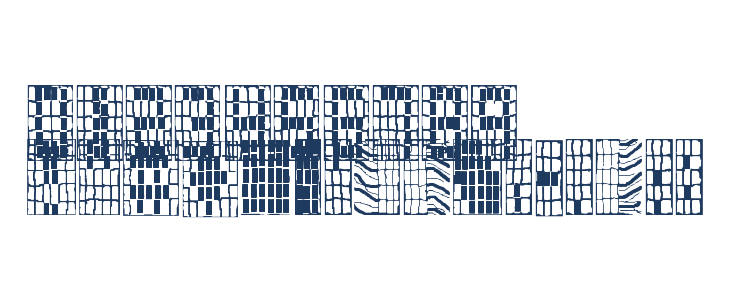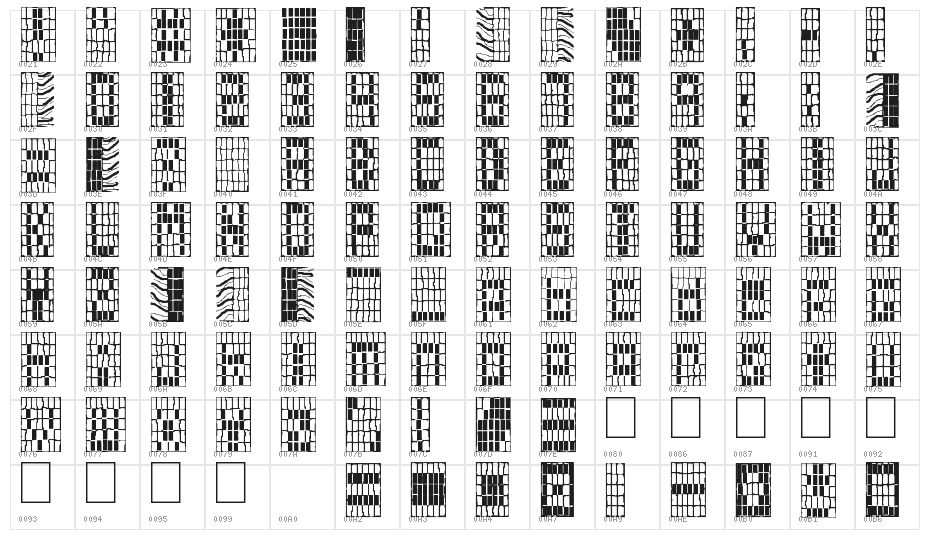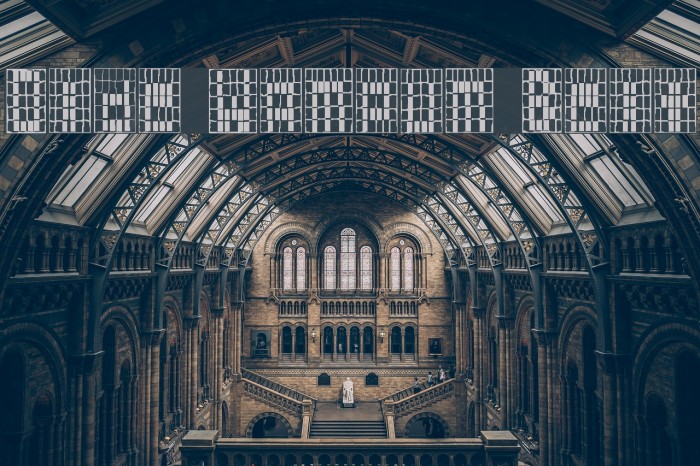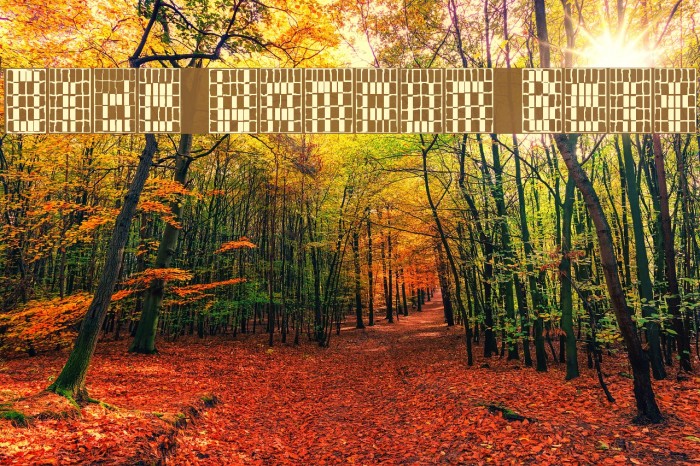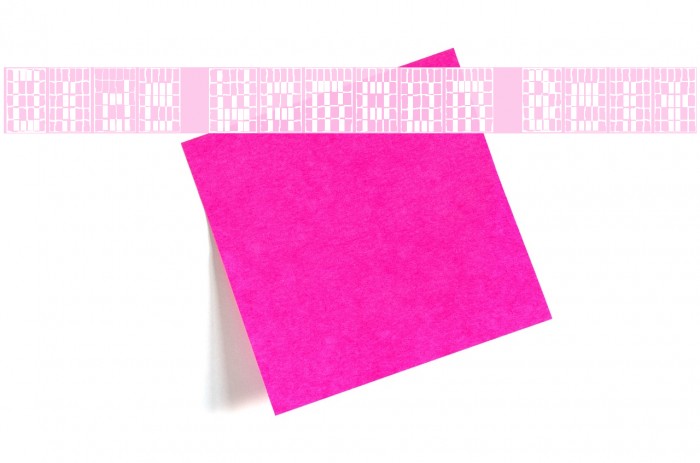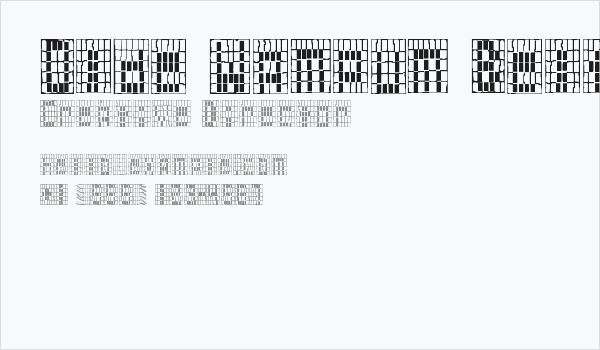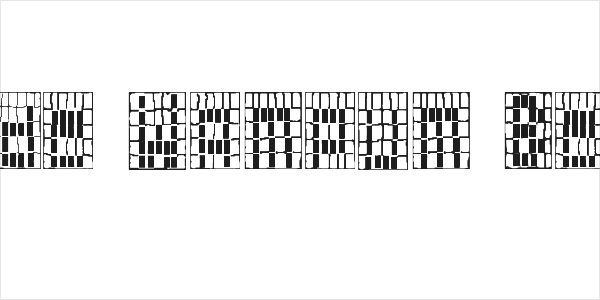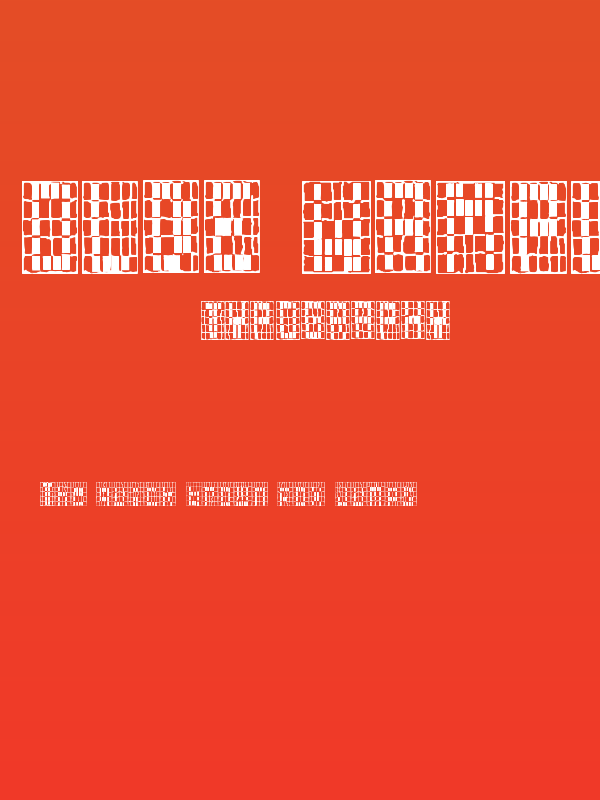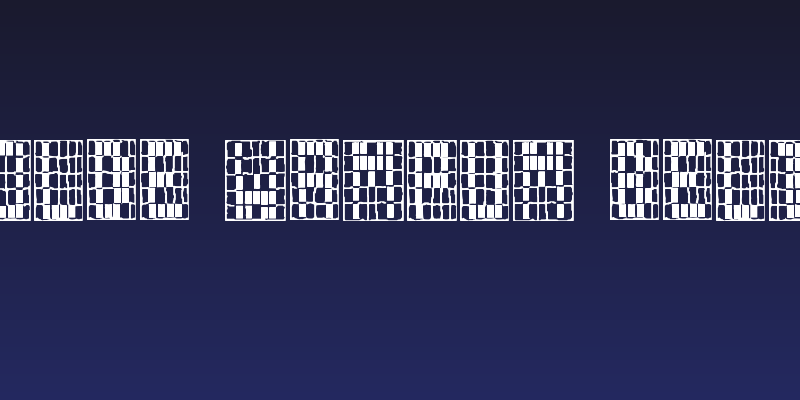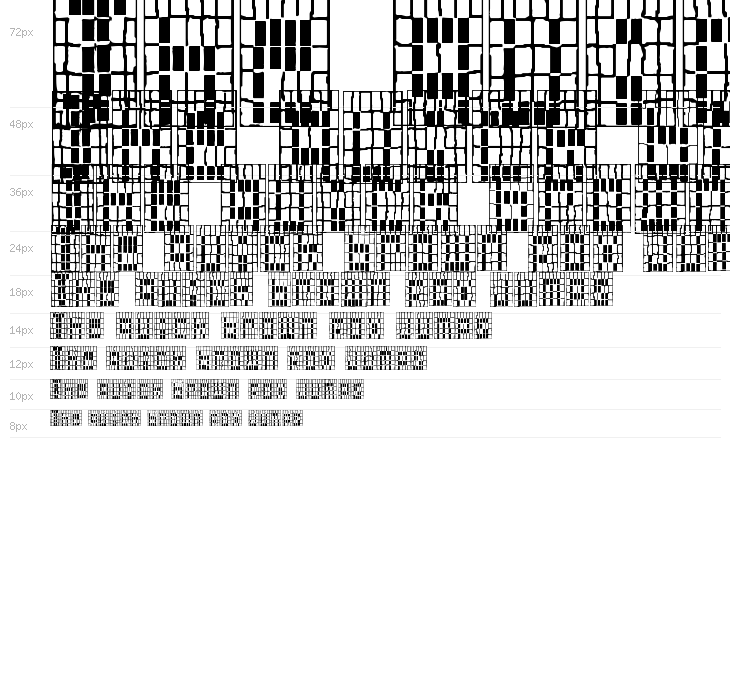
Olde Wampum Belt Font
Olde Wampum Belt Description
This font features a unique and intricate design inspired by traditional beadwork patterns. Each character is composed of a grid-like structure filled with alternating black and white blocks, creating a mosaic effect. The geometric nature of the font gives it a distinct, handcrafted appearance, reminiscent of cultural artifacts. The characters maintain a consistent height and width, contributing to a uniform look across the typeface. The style is highly decorative, making it suitable for projects that require a bold and artistic statement. The font's complexity and visual interest make it stand out, while its grid-based design ensures readability.
Proposed ProjectsIdeal for cultural projects, artistic posters, unique branding, and decorative headings.